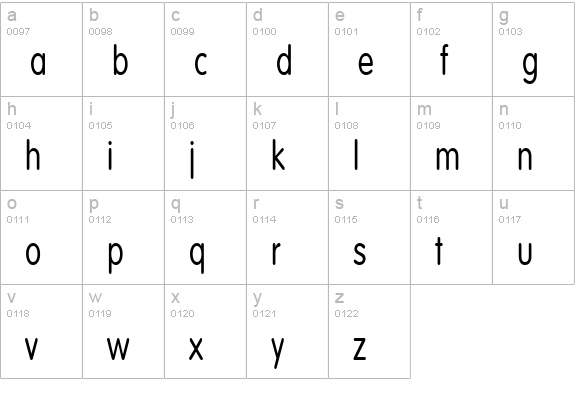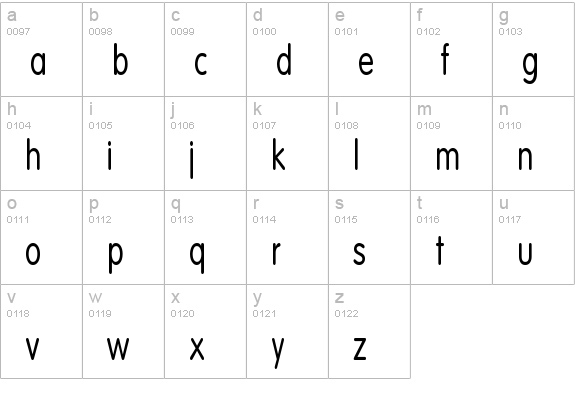
Vogel Condensed Normal is the standard, neutral, condensed-width variant in the Vogel typeface family \xE2\x80\x94 well suited to general body text, paragraphs, and standard typographic work.
Vogel Condensed Normal font is a stunning typeface that exudes elegance and sophistication. With its clean and modern design, it is perfect for a wide range of design projects, from logos and branding to headlines and posters. This font features a condensed style, which allows for more text to be displayed in a limited amount of space without sacrificing legibility. The letters are well-balanced and beautifully crafted, creating a harmonious flow that is pleasing to the eye. Vogel Condensed Normal font is versatile and can be used in both print and digital media. Its timeless appeal makes it suitable for various industries, including fashion, beauty, technology, and more. One of the best things about this font is that it is free to download. You can easily access it at FontsMarket.com, where you will find a vast collection of high-quality fonts. Whether you are a professional designer or a hobbyist, Vogel Condensed Normal font is a valuable addition to your font library. So, why wait? Enhance your designs with the elegance and style of Vogel Condensed Normal font. Download it for free today at FontsMarket.com and unleash your creativity.